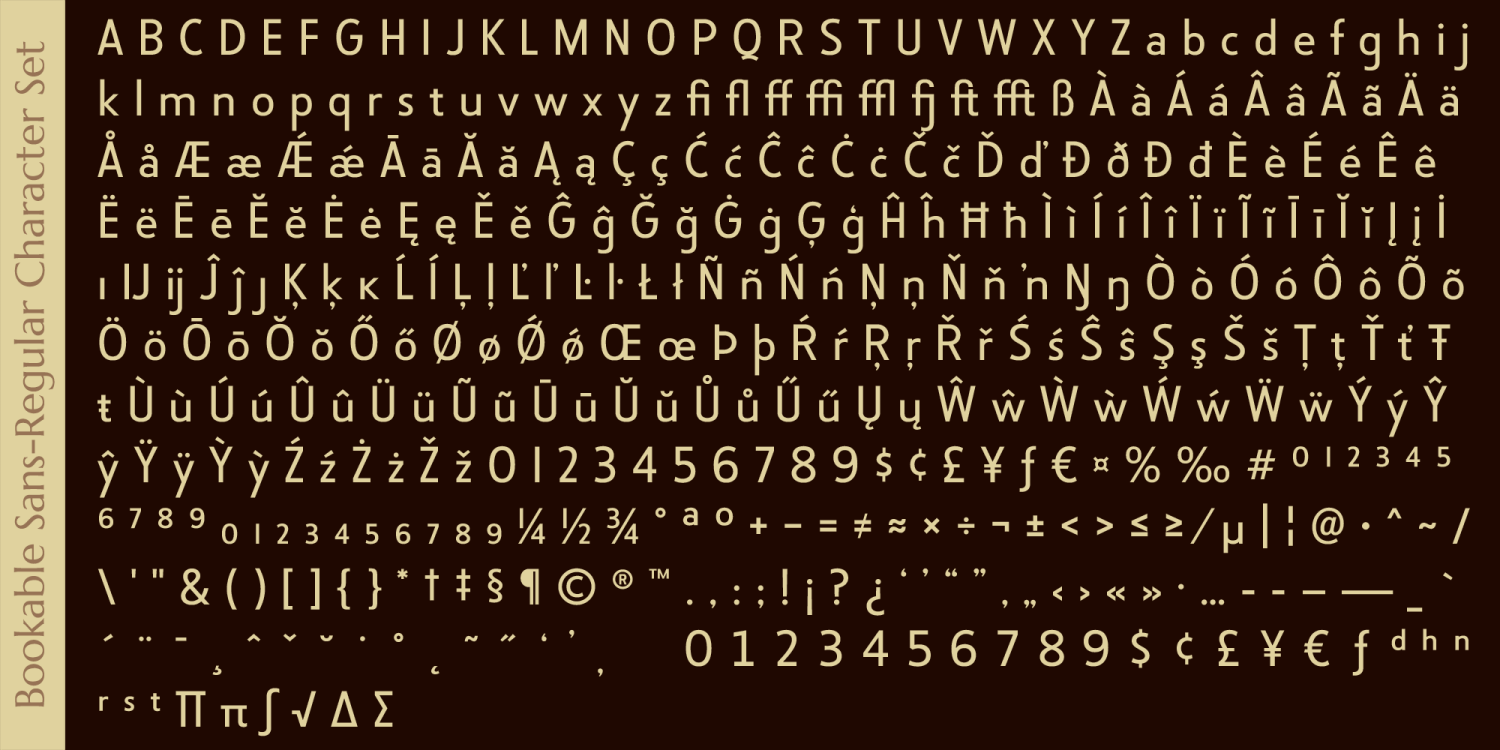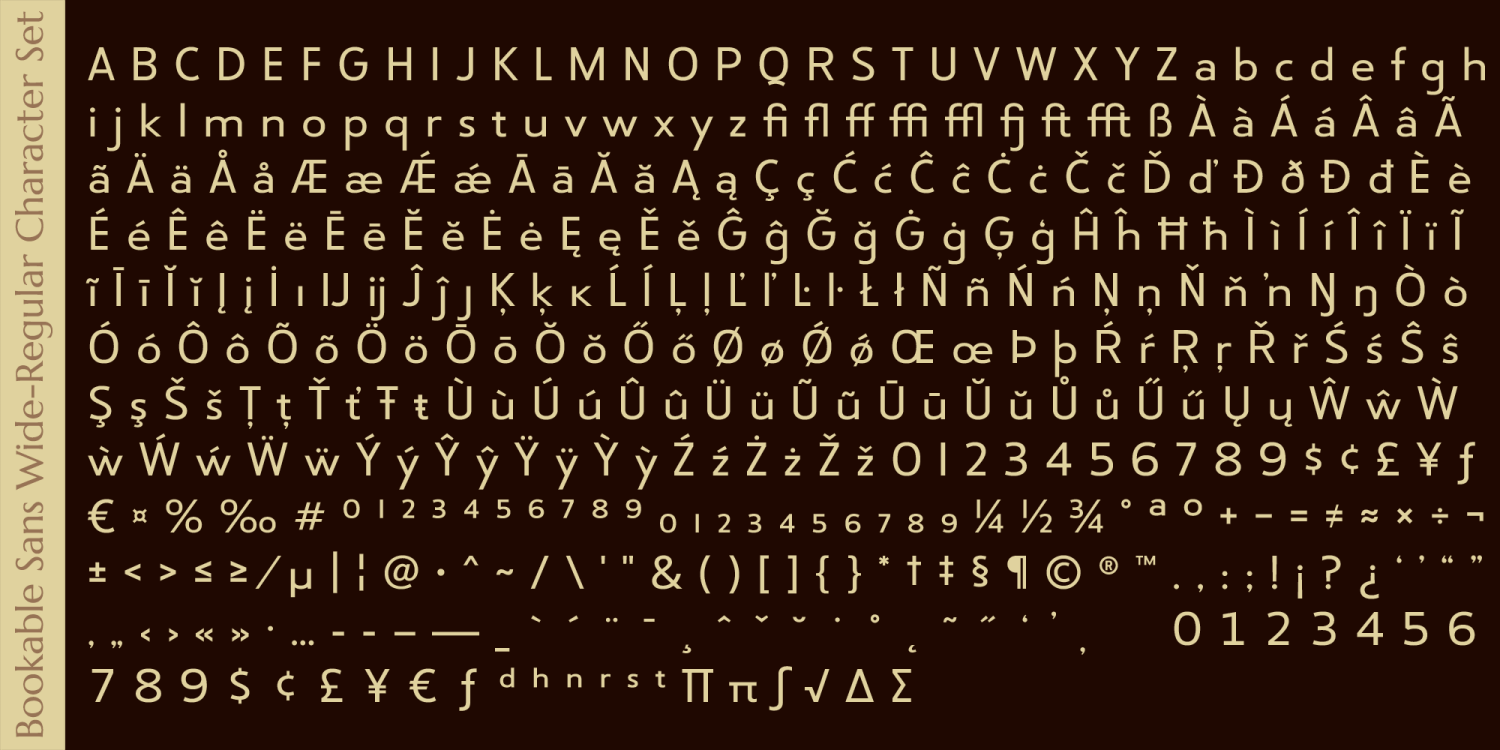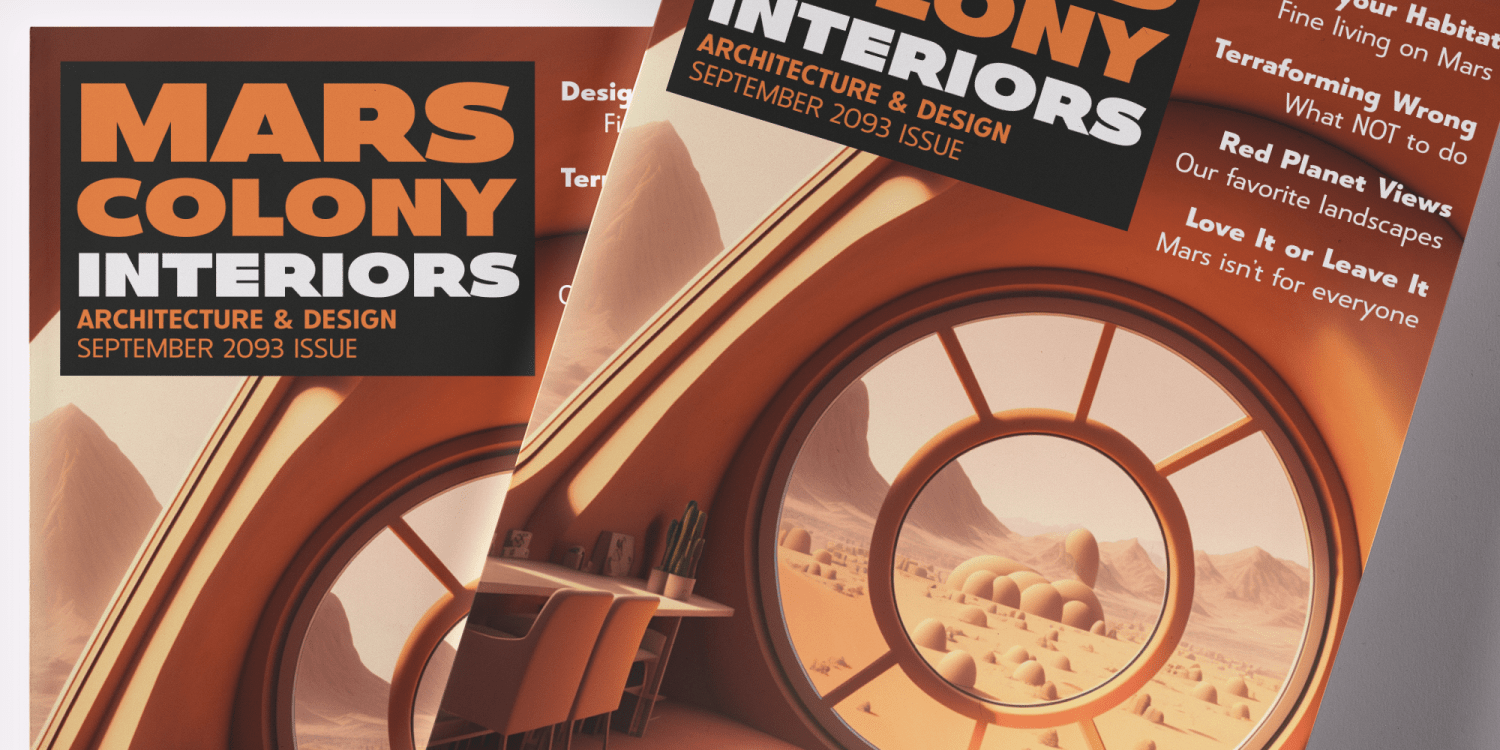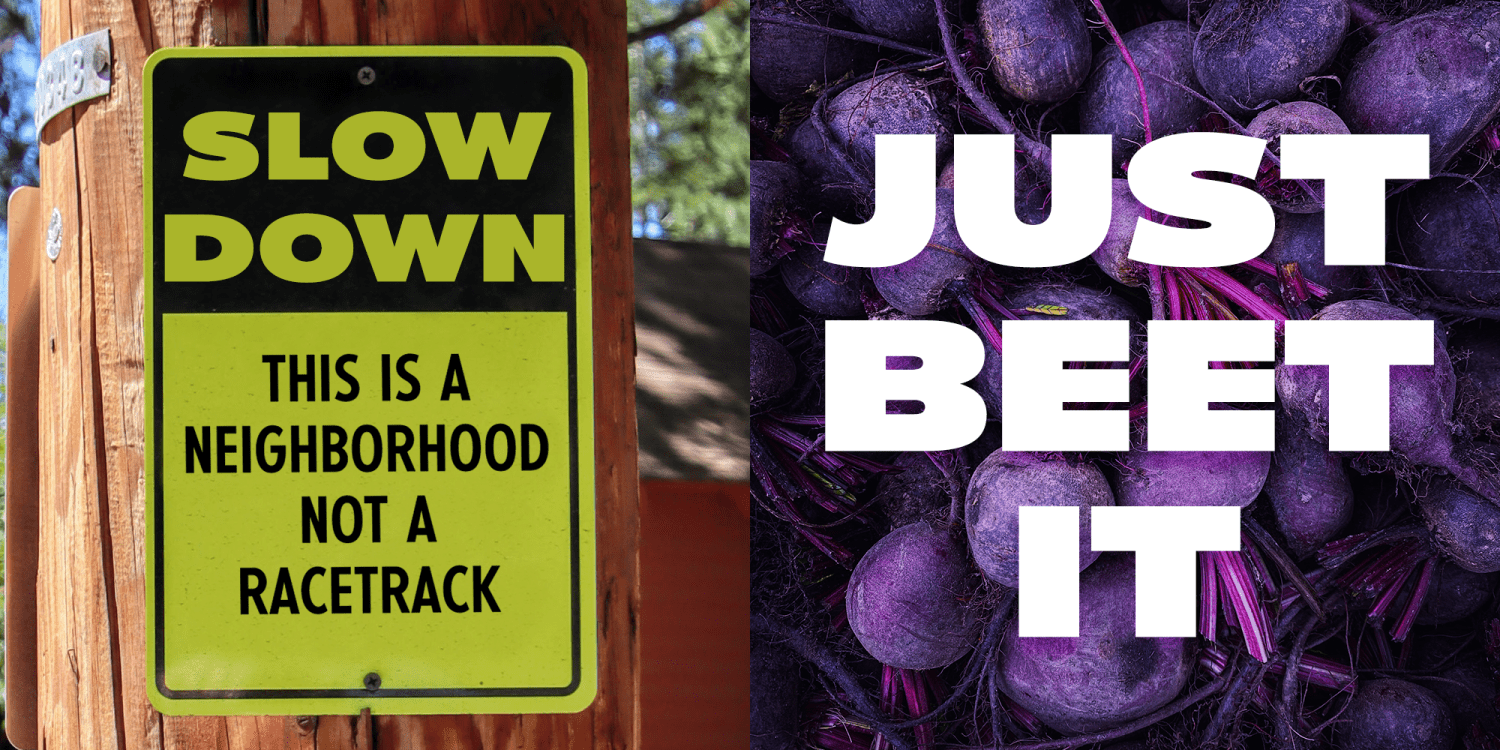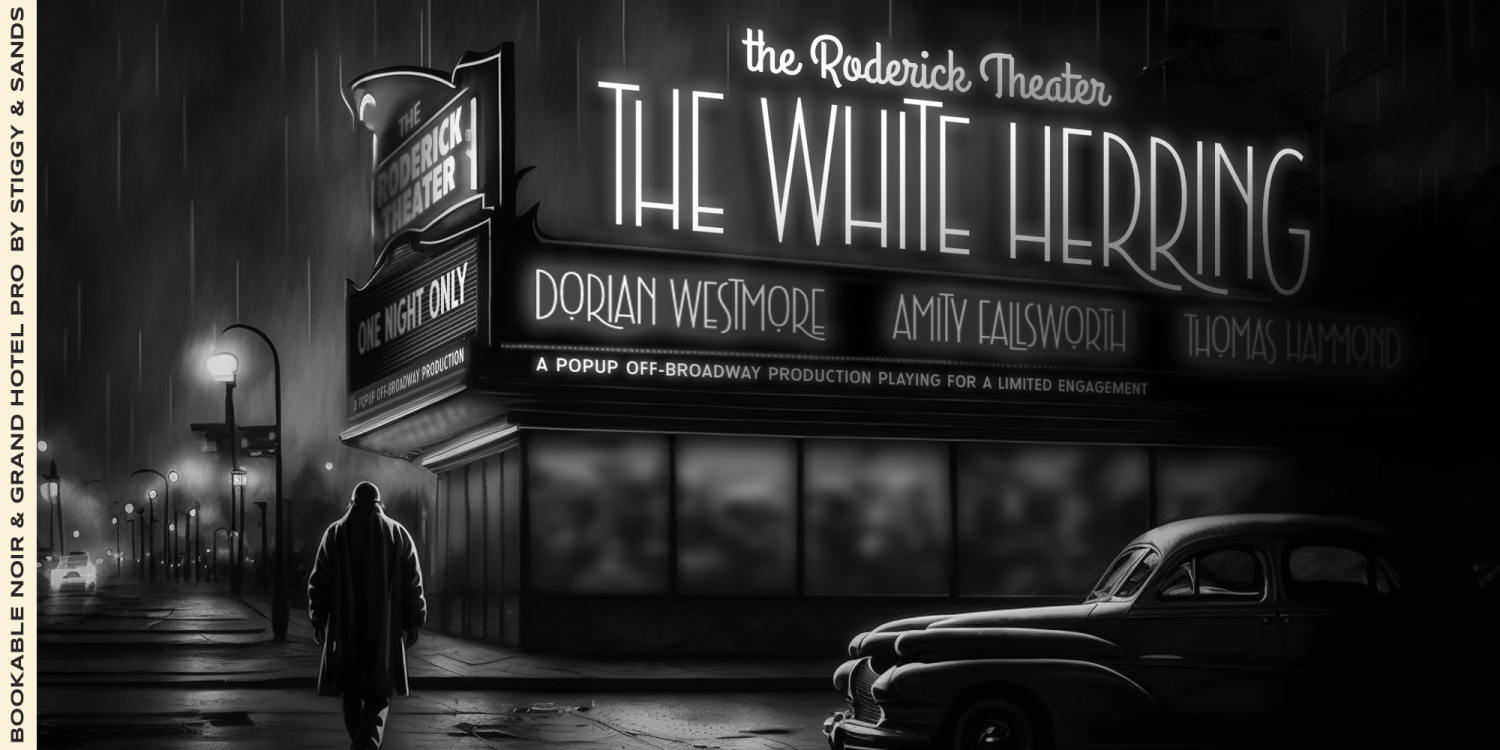
About Bookable Sans
A Sans Serif Family with a few unique relatives Our Bookable Sans Family was inspired by a lettering specimen from ?Letters and Lettering? by Carlyle & Oring, but you\’ll find the inspiration has come a long way, baby. From its original reference of displaying…